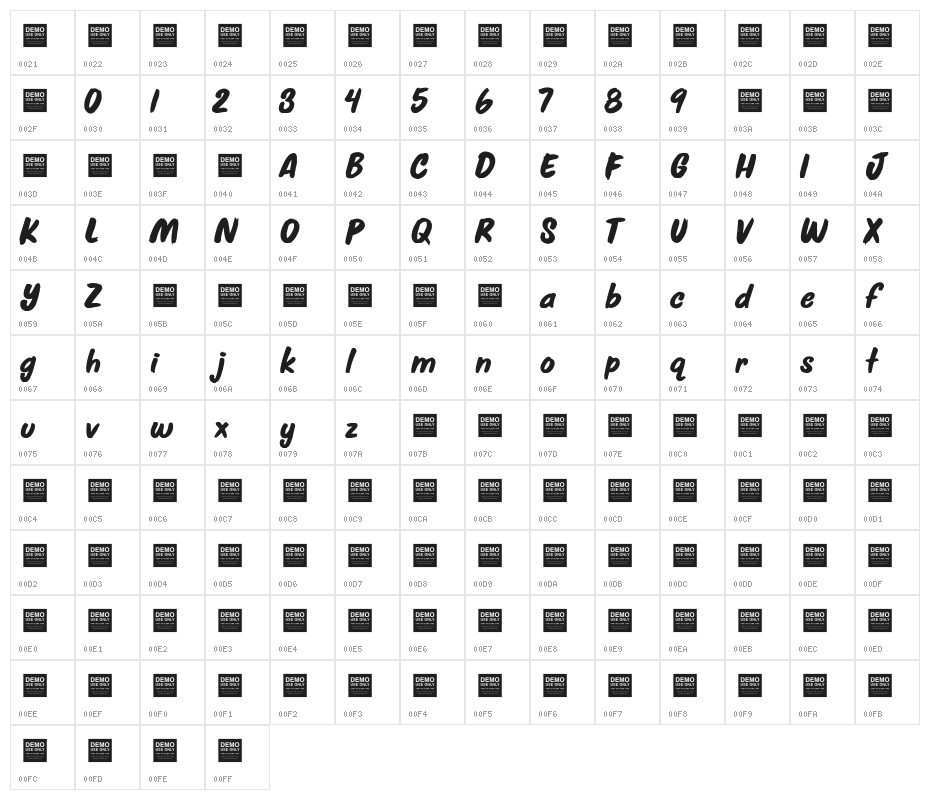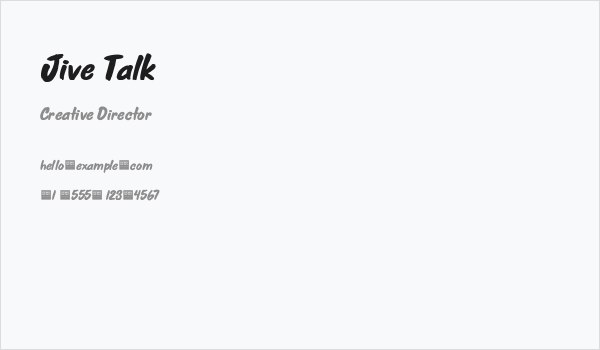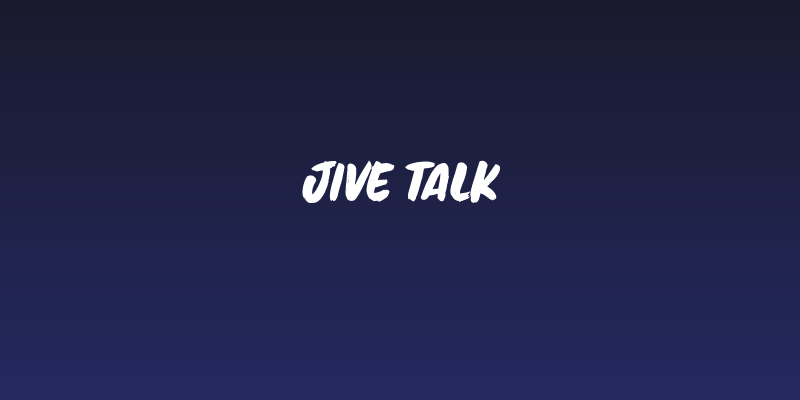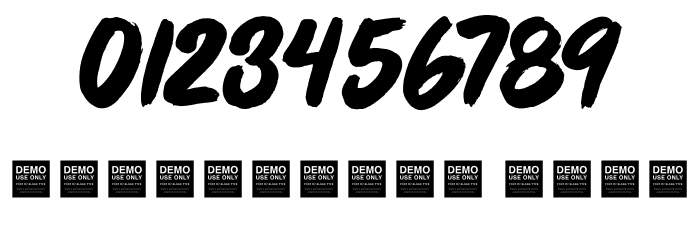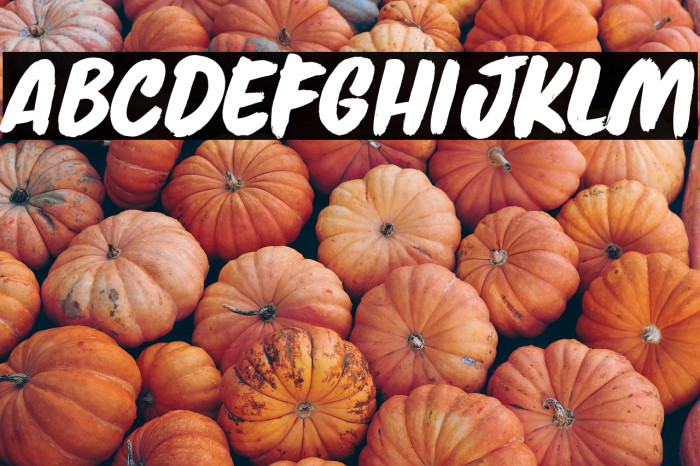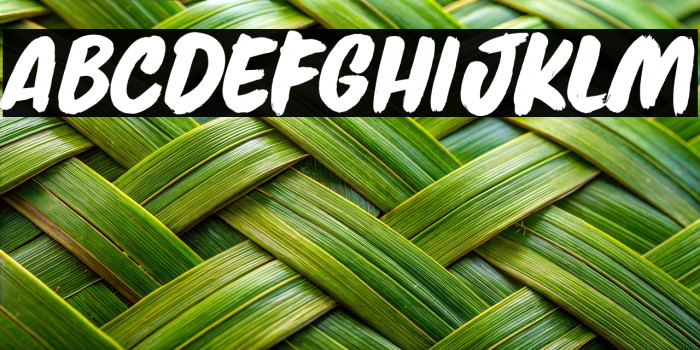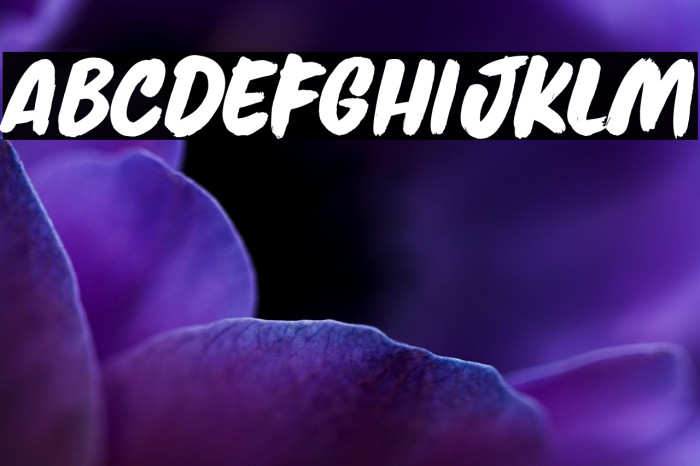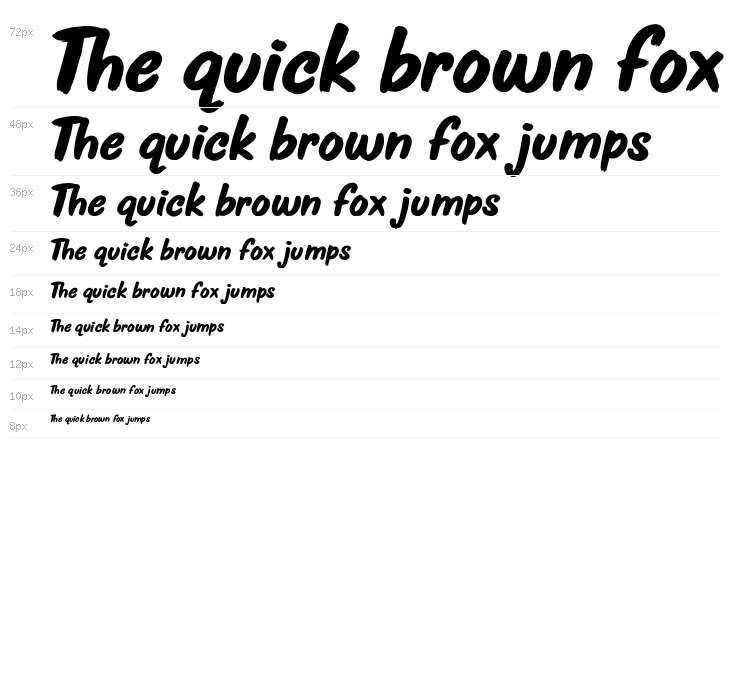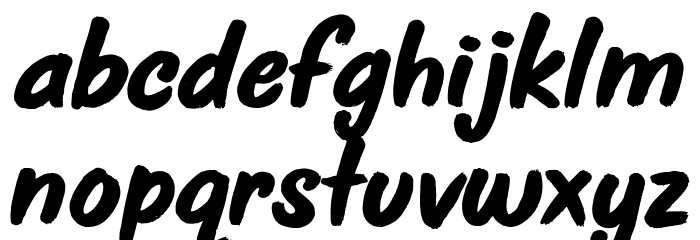
Jive Talk Font
Jive Talk Description
This font exudes a bold and energetic personality, characterized by its brush-like strokes that give it a dynamic and lively appearance. The letters are crafted with a sense of movement, as if painted with a thick brush, creating a sense of spontaneity and creativity. The uppercase and lowercase letters maintain a consistent style, with rounded edges and slightly irregular shapes that add to its handcrafted feel. The numbers follow the same aesthetic, ensuring a cohesive look across all characters. This font is perfect for projects that require a touch of artistic flair and a bold statement.
JIVE-TALK UPPERCASE
JIVE-TALK LOWERCASE
JIVE-TALK OTHER CHARS
| Proposed Projects | Ideal for posters, branding, album covers, and creative advertising campaigns. |